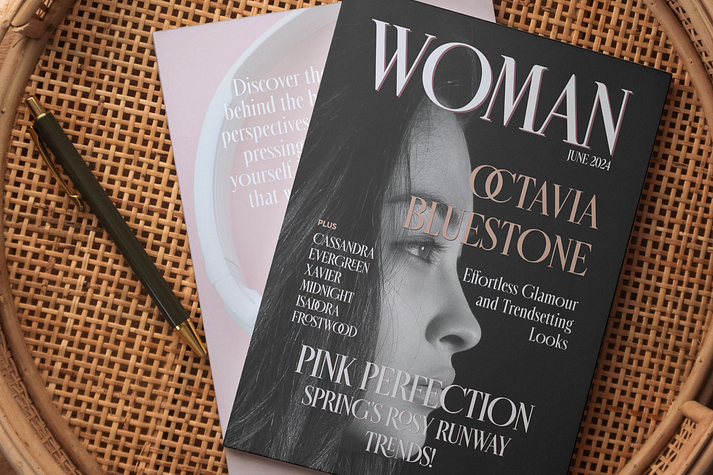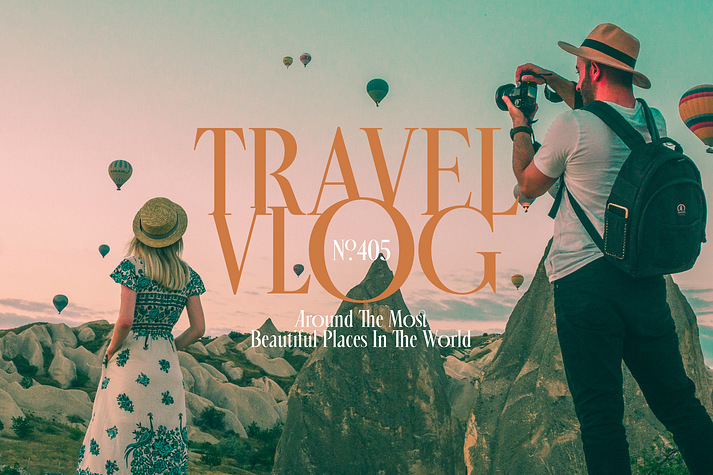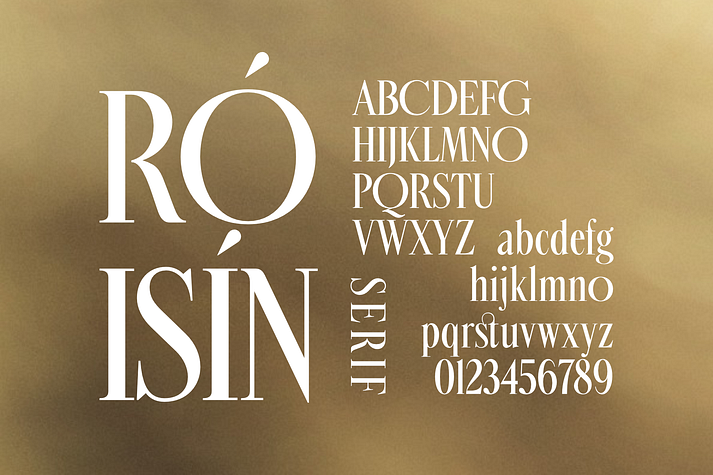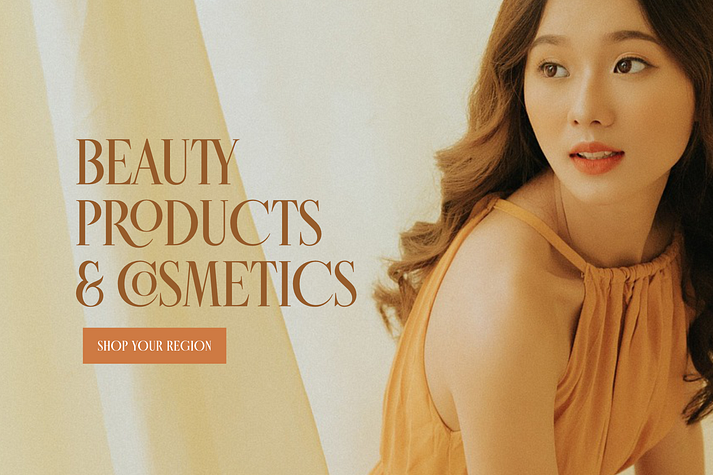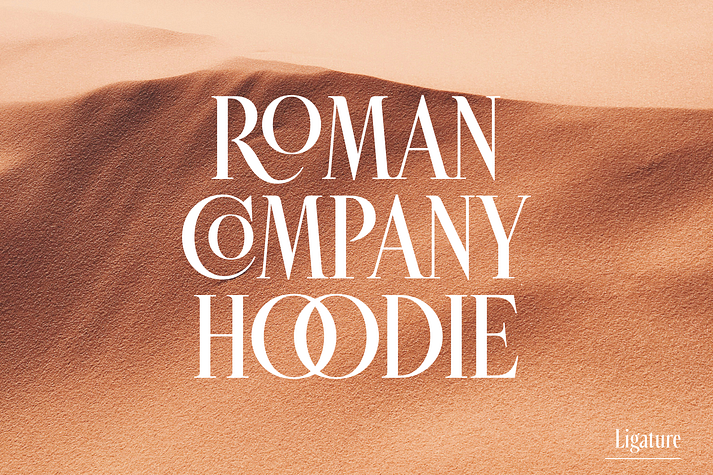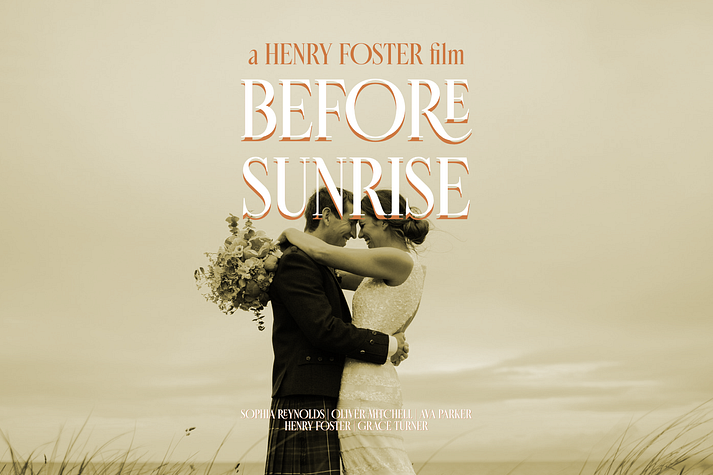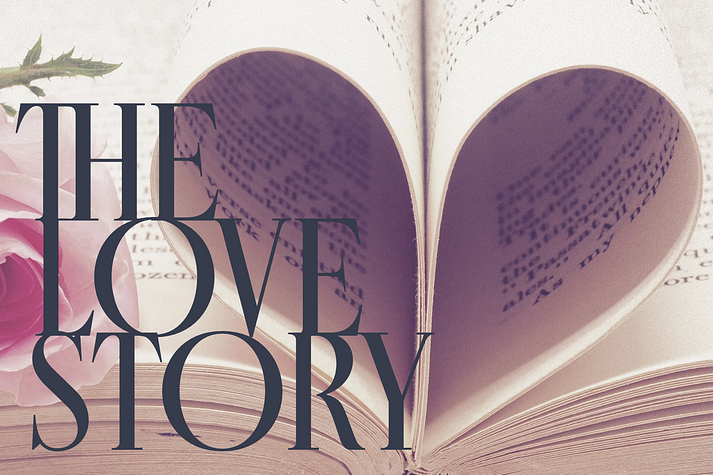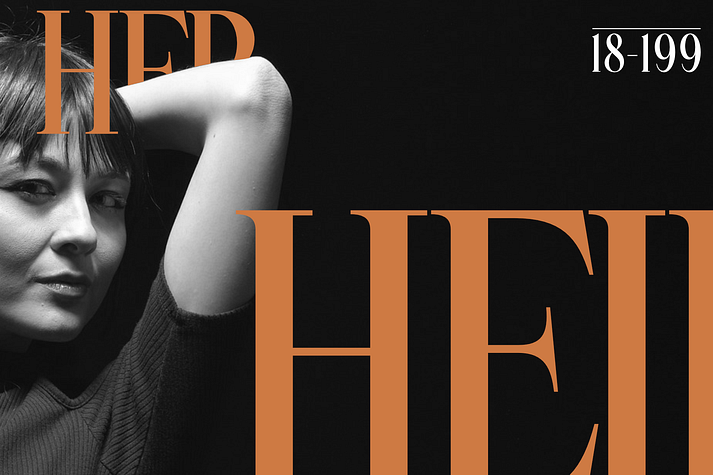
Roisin
Roisin is a display serif and serif font family published by muhammadhastian.
Roisin is a captivating serif typeface that seamlessly marries the sophistication of condensed letterforms with the graceful curves of wide circular figures. This harmonious fusion results in a font that balances elegance, readability, and versatility.
Its refined letterforms blend classic design elements with a contemporary twist, making it ideal for a wide range of projects. Whether you’re designing invitations, branding materials, or editorial layouts, Roisin adds a touch of sophistication and charm.